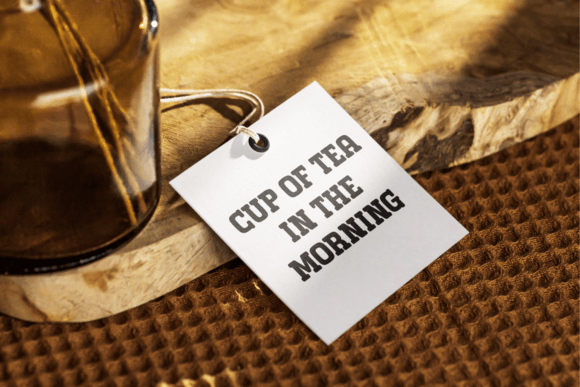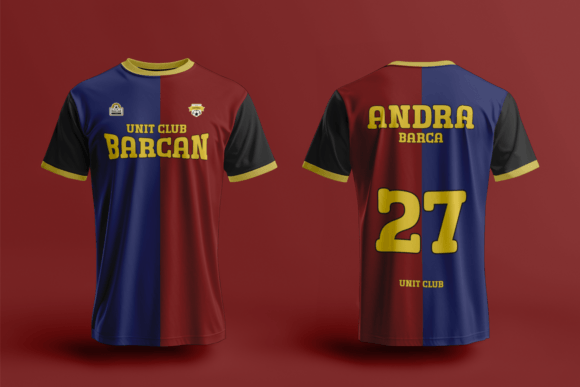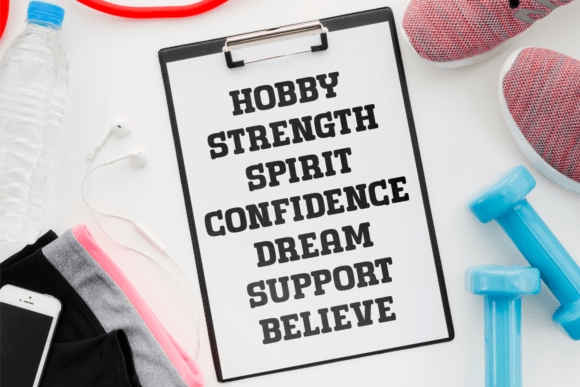
Empowering Your Designs with Siboro Talom Font
Have you ever found yourself in the middle of a creative project, struggling to find the perfect font to bring your vision to life? You’ve searched high and low, scrolling through page after page of font options, only to settle for something that just doesn’t quite feel right. We’ve all been there, but what if we told you that there’s a game-changing font out there that’s about to revolutionize the way you approach your design projects?
Enter the Siboro Talom Font, a high-quality, free download that’s sure to add an extra layer of joy and creativity to your designs. With its transparent background and versatility, this design resource is the perfect addition to any creative project. Whether you’re a seasoned designer or just starting out, the Siboro Talom Font is a valuable asset that’s sure to elevate your work and take it to the next level.
Key Features of Siboro Talom Font
- High-quality, unique font design ideal for creative projects, available for free download as a design resource.
- Supports a transparent background, allowing for versatile usage in various design contexts.
- Designed with a modern aesthetic, featuring a clean and minimalist style, perfect for a wide range of creative projects.
- Includes a wide range of characters, including uppercase and lowercase letters, numbers, and punctuation marks, for comprehensive use.
Honest Review: Siboro Talom Font
I recently stumbled upon the Siboro Talom Font and was excited to give it a try. As a designer, I’m always on the lookout for high-quality, free design resources to enhance my creative projects. And let me tell you, this font did not disappoint.
Here are some things that work well about the Siboro Talom Font:
- ✨ The font is highly customizable, allowing for a range of styles and variations.
- ✨ The transparent background option is a game-changer for designers who want to create seamless, layered designs.
- ✨ The font is incredibly versatile, making it suitable for a wide range of creative projects, from logos to typography-based designs.
- ⚠️ The font may not be as polished as some paid options, with a few rough edges and inconsistencies.
- ⚠️ The font’s character set is limited, which may not be ideal for designers who need to work with a wide range of languages.
Overall, I’m impressed with the Siboro Talom Font. While it may not be perfect, it’s a solid addition to any designer’s toolkit. With a little creativity and experimentation, you can achieve some amazing results with this font. And the best part? It’s completely free to download and use in your design projects.
Tips for Getting the Most Out of Siboro Talom Font
For the best results, pair the Siboro Talom Font with a transparent background to create a clean and modern design. Experiment with different font sizes and styles to add depth and visual interest to your project.
The Siboro Talom Font is ideal for use in various creative projects, including logos, brochures, posters, and business cards. Its high-quality design and transparent background make it a popular choice among designers and artists.